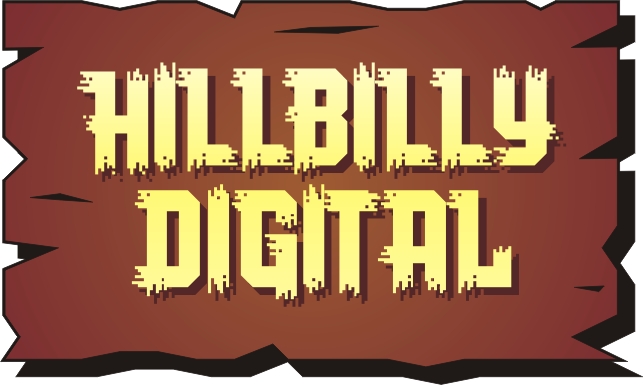
Yehaaaa! Looks like it has been painted with a four inch brush on the side of a shack :) Great effect.
Great brushy look. The space between words could be wider.
a bit of TIKI STYLE
Looks like something belonging on a sign! :)